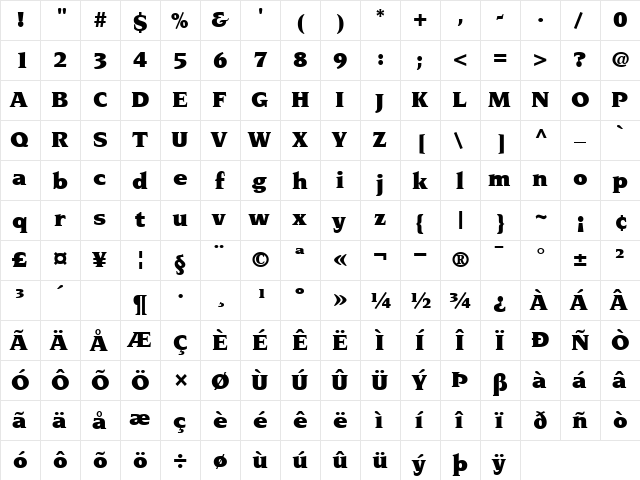
Novarese Ultra
Design Context for Novarese Typeface
Novarese is a composed and adaptable typeface that performs quietly and consistently across a wide range of design contexts.